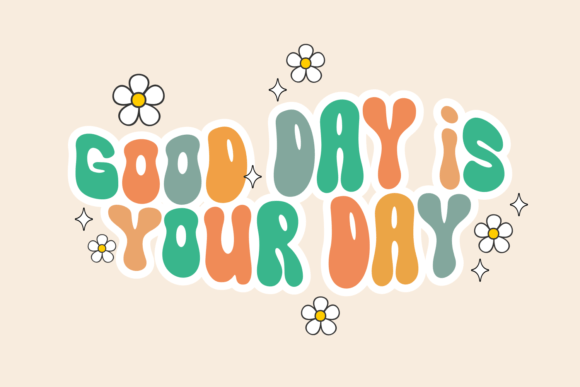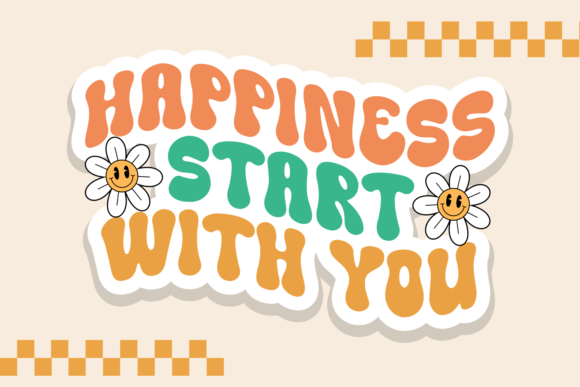
Morning Bright Font
Morning Bright is a cute and charming display font. Whimsical and a bit quirky, this font will brighten up each of your designs. Add it confidently to your projects, and you will love the results.